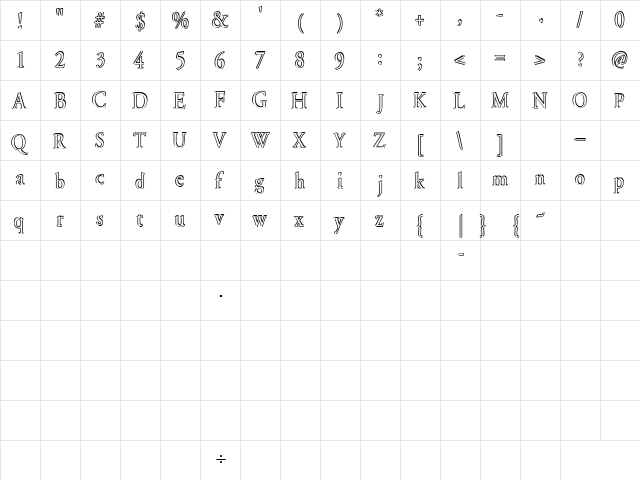
Overlapserif Regular
Design Context for Overlapserif Typeface
Overlapserif carries the refined structure of traditional serif typography, with bracketed terminals and considered proportions that communicate credibility and craft.